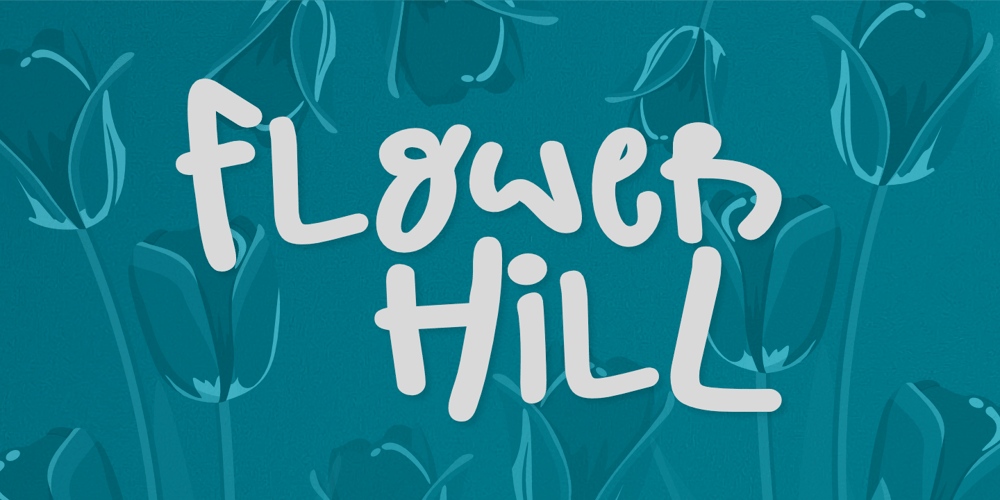
Flower Hill Font Family was designed by Nurul Hidayani and published by Olivetype. Flower Hill contains 1 styles and family package options. Introducing Flower Hill, a fun and quirky display font! With its vibrant and playful design, Flower Hill will instantly bring a touch of fun to any project. Whether you’re designing a party invitation or creating social media graphics, this font can adapt to any theme or style effortlessly.Flower Hill Font features : Standard Latin Numbers, symbols, and punctuations Multilingual Support. Fully accessible without additional design software Simple Installations Works on PC & Mac Thank You.